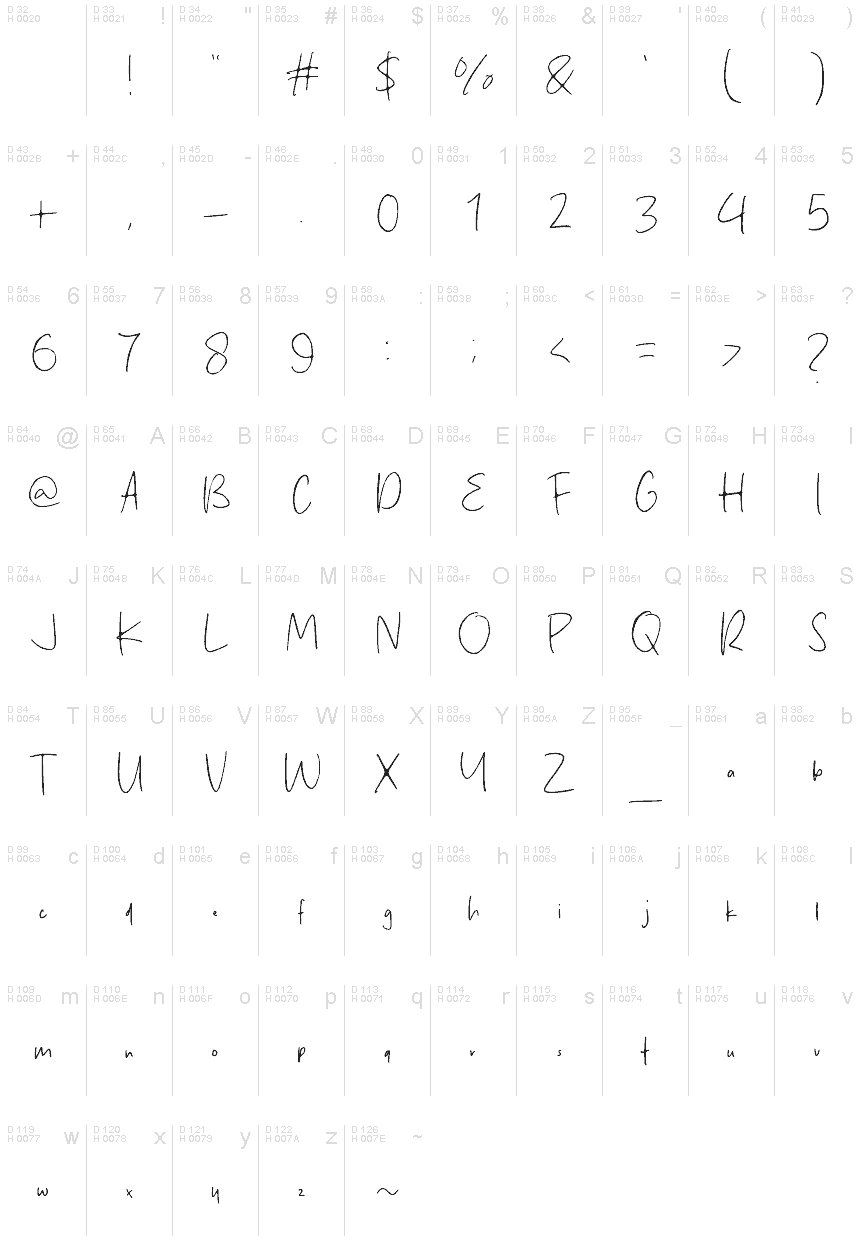
Stanly Wosh is a free handwritten font presented by MJType with a simple, playful, and quirky design. With a playful spirit, Stanly delivers a wide range of emotions, so it’s ideal for branding and packaging design projects related to books, photography albums, artwork portfolios and exhibition posters, stationery items and accessories (e.g. T-shirt designs, notepads), social media posts, and invitations for special occasions such as birthdays, weddings, and baby showers.
This font is available in light weight only with the entire set of Latin characters, numbers, punctuations and symbols. Check out our selection of fonts to find other handwritten font designs as well as other calligraphy scripts.